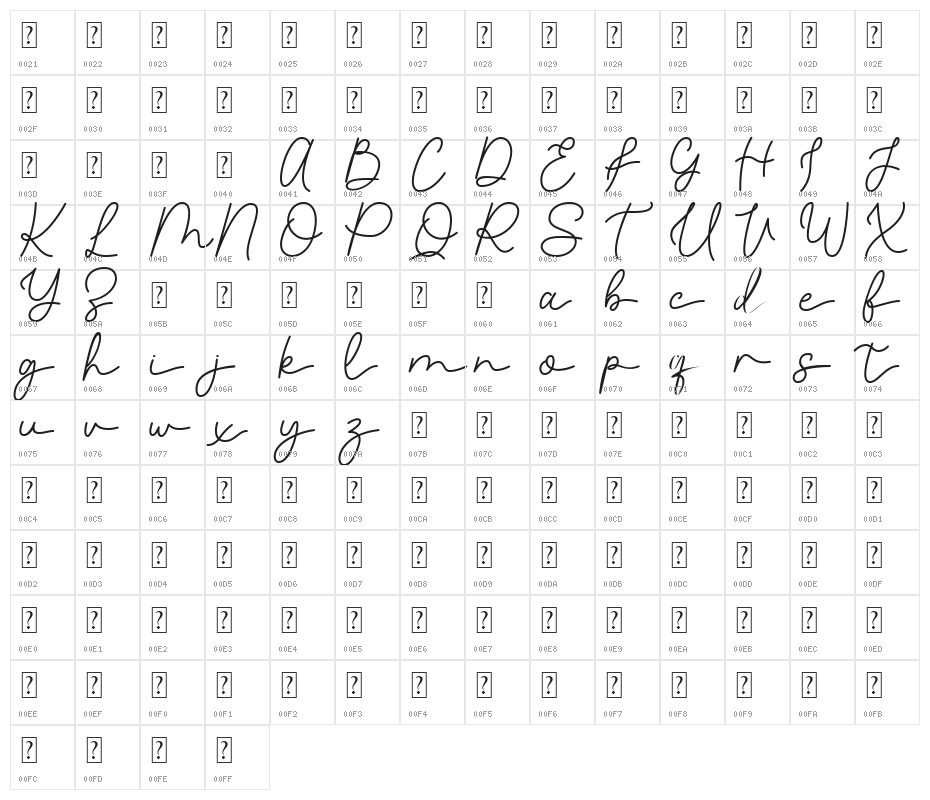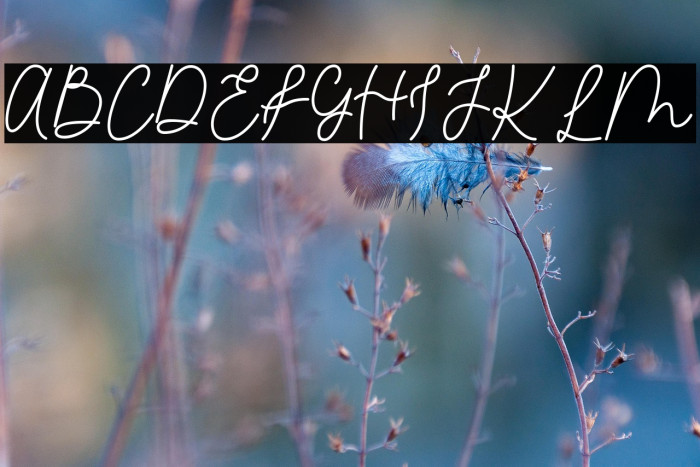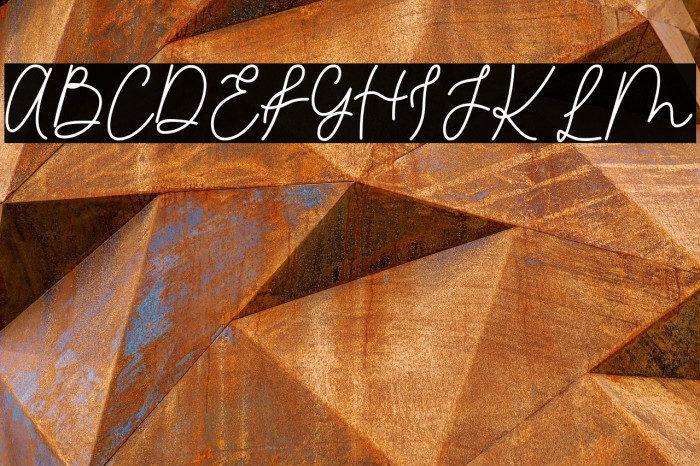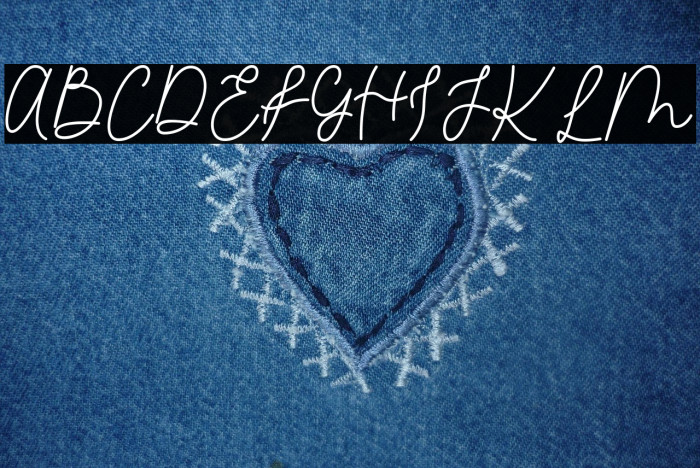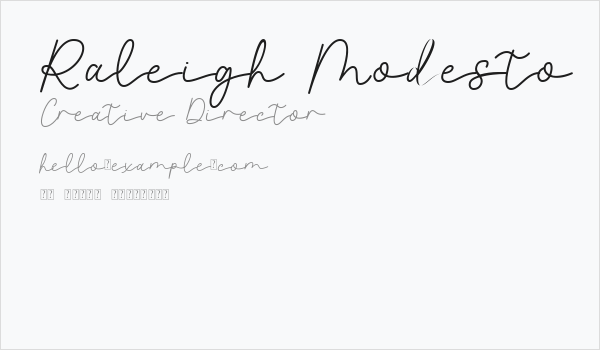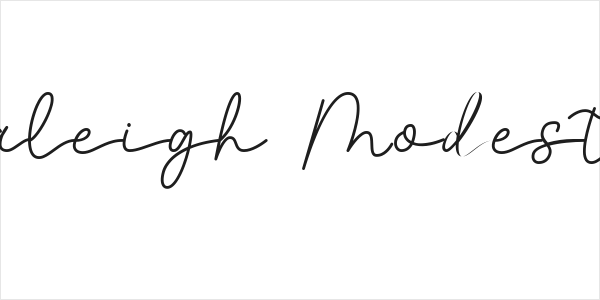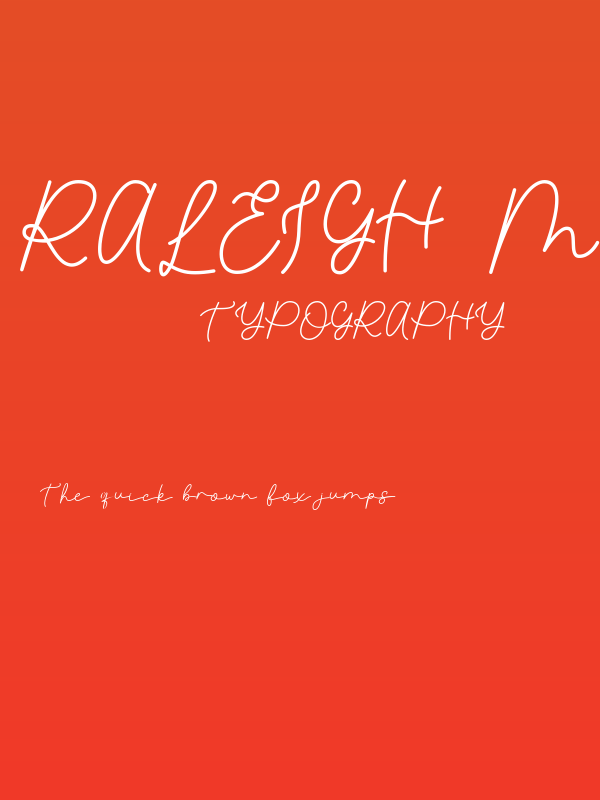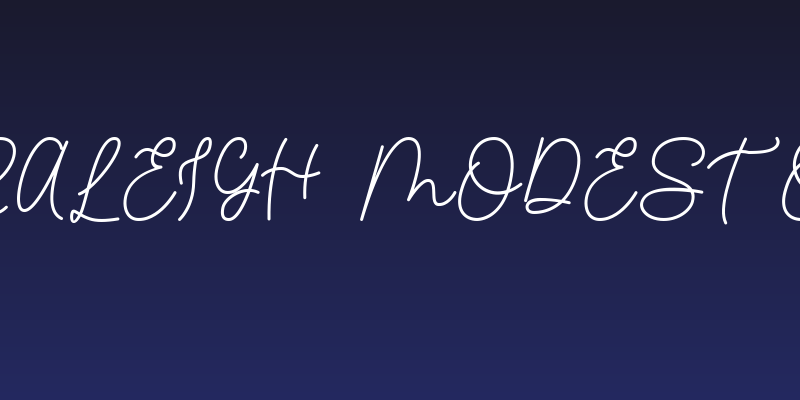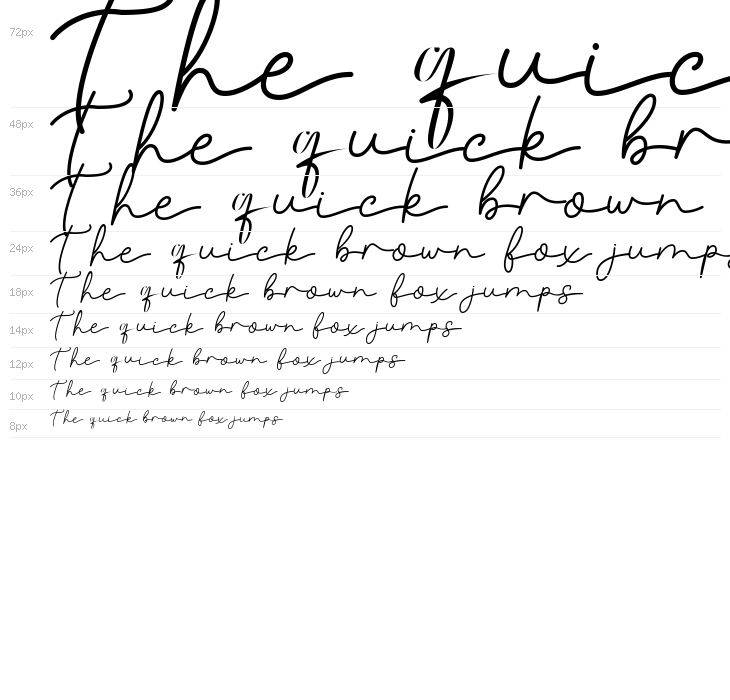
Raleigh Modesto Font
Raleigh Modesto Description
This font features a flowing, cursive style with elegant, interconnected letters that give it a handwritten appearance. The uppercase letters are tall and graceful, with sweeping curves and loops that add a sense of movement and fluidity. The lowercase letters maintain this fluidity, with smooth transitions between strokes and a consistent slant that enhances the script-like quality. The overall design is delicate yet legible, making it suitable for a variety of decorative purposes. The font lacks traditional special characters, which may limit its use in certain contexts, but its aesthetic appeal makes it ideal for creative projects.
| Proposed Projects | Ideal for wedding invitations, greeting cards, personal branding, and decorative signage. |